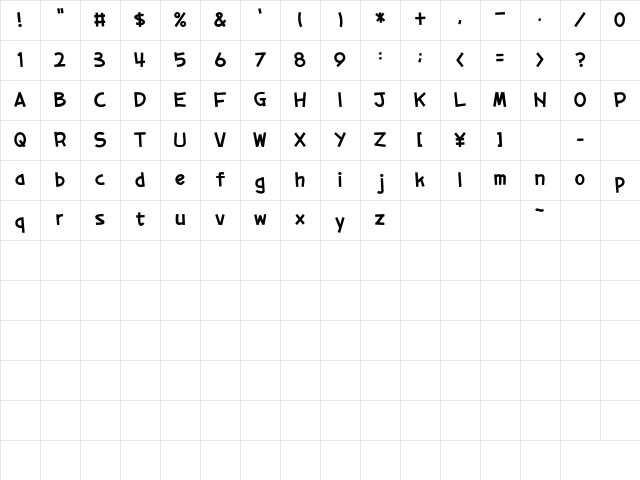
01tama Regular Free Font
01tama Regular
Design Context for 01tama
01tama is a composed and adaptable typeface that performs quietly and consistently across a wide range of design contexts.
Pro Tip: Use 01tama in both headline and body roles to test its range before committing to a single application.